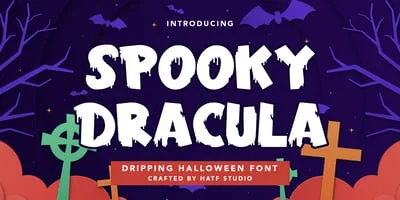
Spooky Dracula Font
Spooky Dracula Font is perfect for gothic horror branding, vampire-themed entertainment, Halloween event promotions, dark fantasy book covers, gothic fashion marketing, spooky castle tours, horror movie posters, supernatural gaming interfaces, haunted attraction signage, and macabre theatrical productions.
What makes Spooky Dracula Font exciting is its darkly aristocratic character that perfectly captures the ancient menace and gothic elegance of classic vampire lore and Transylvanian mystery. This typeface features dramatic letterforms with blood-dripping details and Victorian gothic elements that instantly evoke the chilling presence of immortal darkness and aristocratic evil. The font's vampiric personality and gothic authenticity make it ideal for horror entertainment brands seeking to convey timeless terror, supernatural sophistication, and the spine-chilling elegance that comes from centuries of gothic horror tradition and vampire mythology.
Spooky Dracula Font family includes blood-curdling weight variations and gothic alternatives that enhance its vampiric appeal while providing design flexibility for horror and supernatural applications. The font features fang-sharp ligatures, blood-splatter ornaments, and gothic character variations that create authentic Transylvanian atmosphere for horror and gothic branding.
Horror entertainment companies and gothic lifestyle brands consistently select Spooky Dracula Font for projects requiring authentic vampire appeal and gothic credibility. The font's aristocratic evil character excels in applications targeting horror enthusiasts, gothic culture followers, and brave souls who appreciate classic vampire elegance and supernatural terror. Whether you're designing for horror films, gothic fashion, or vampire entertainment venues, this chilling typeface delivers the gothic authenticity and aristocratic darkness that resonates with audiences seeking genuine vampire mystique and the timeless terror that defines classic gothic horror and immortal evil.